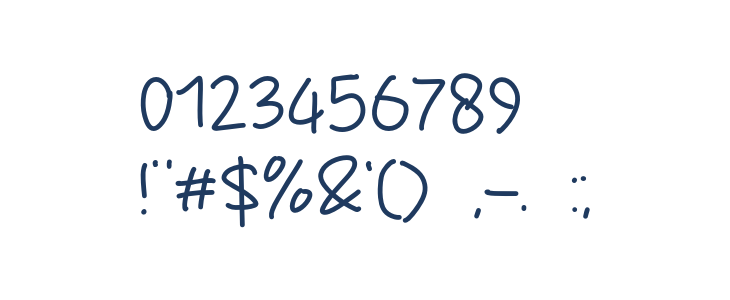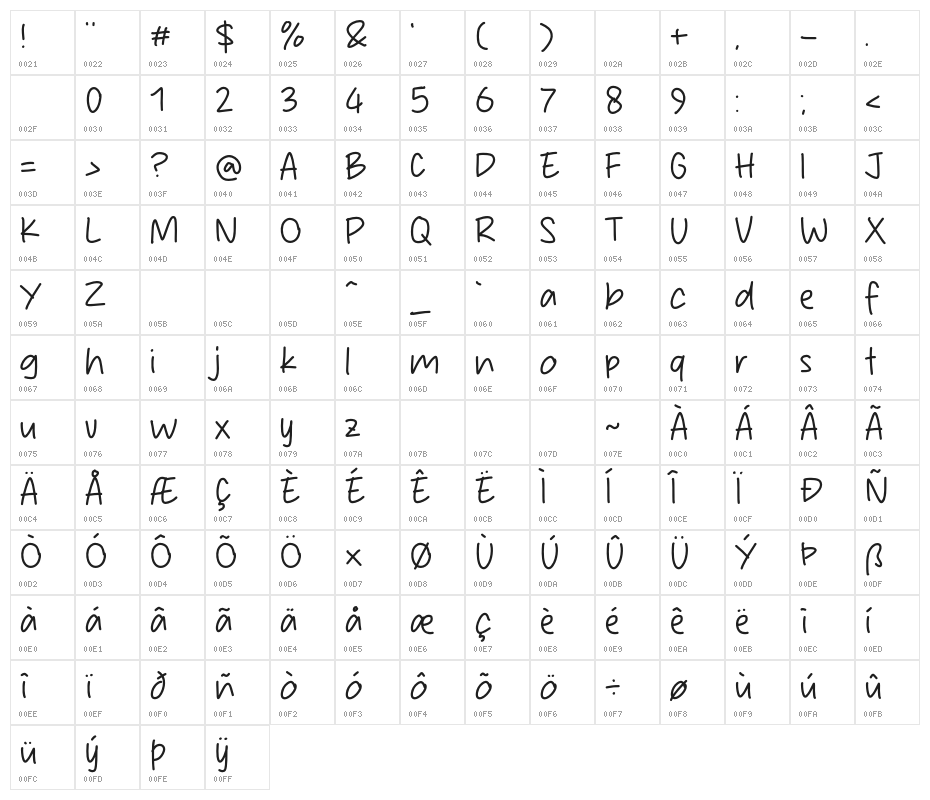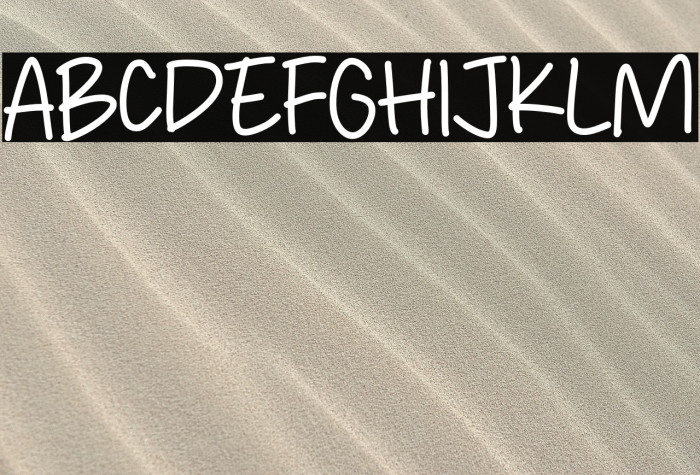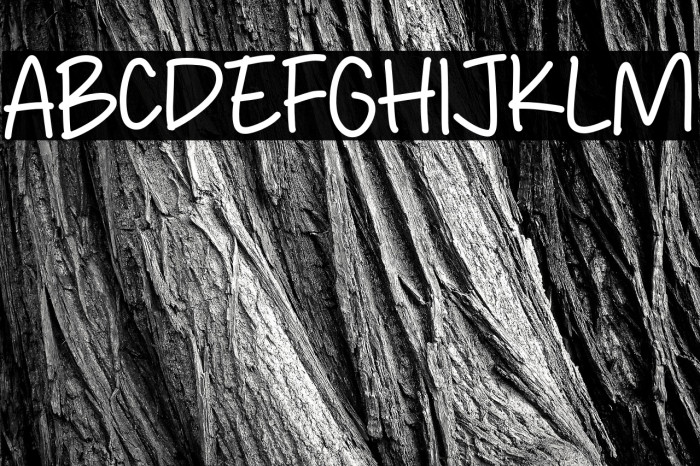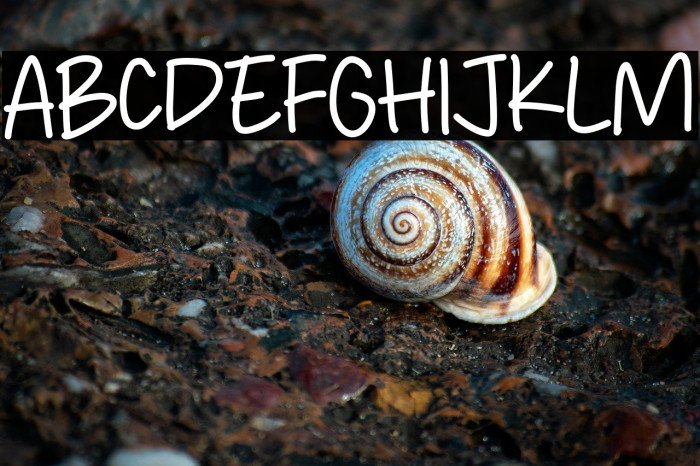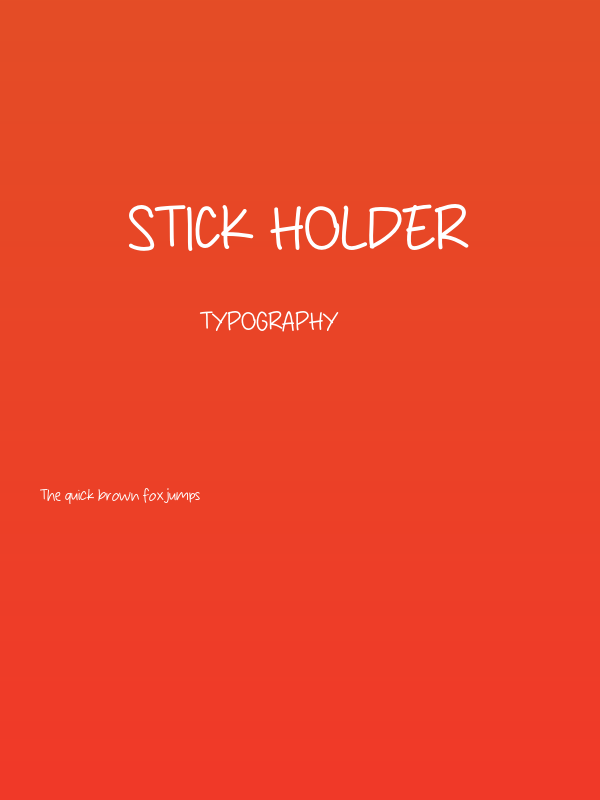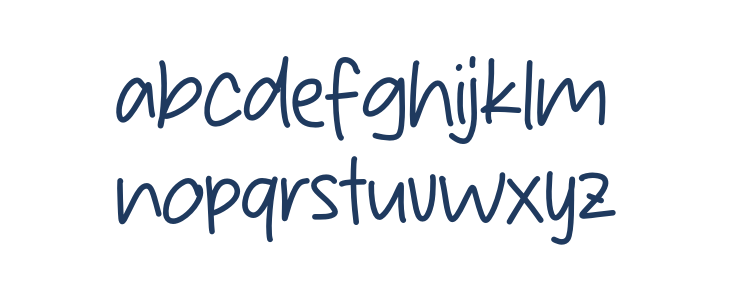
Stick Holder Font
Stick Holder Description
This font exhibits a playful and casual handwritten style, characterized by its smooth, rounded edges and consistent stroke width. The letters are slightly slanted, giving it a dynamic and informal appearance. The uppercase and lowercase letters maintain a uniform height, contributing to a cohesive look. The numerals and special characters are designed to match the overall aesthetic, ensuring readability and visual harmony. This font's friendly and approachable nature makes it suitable for a variety of creative projects.
| Proposed Projects | Ideal for greeting cards, children's books, casual branding, and social media graphics. |